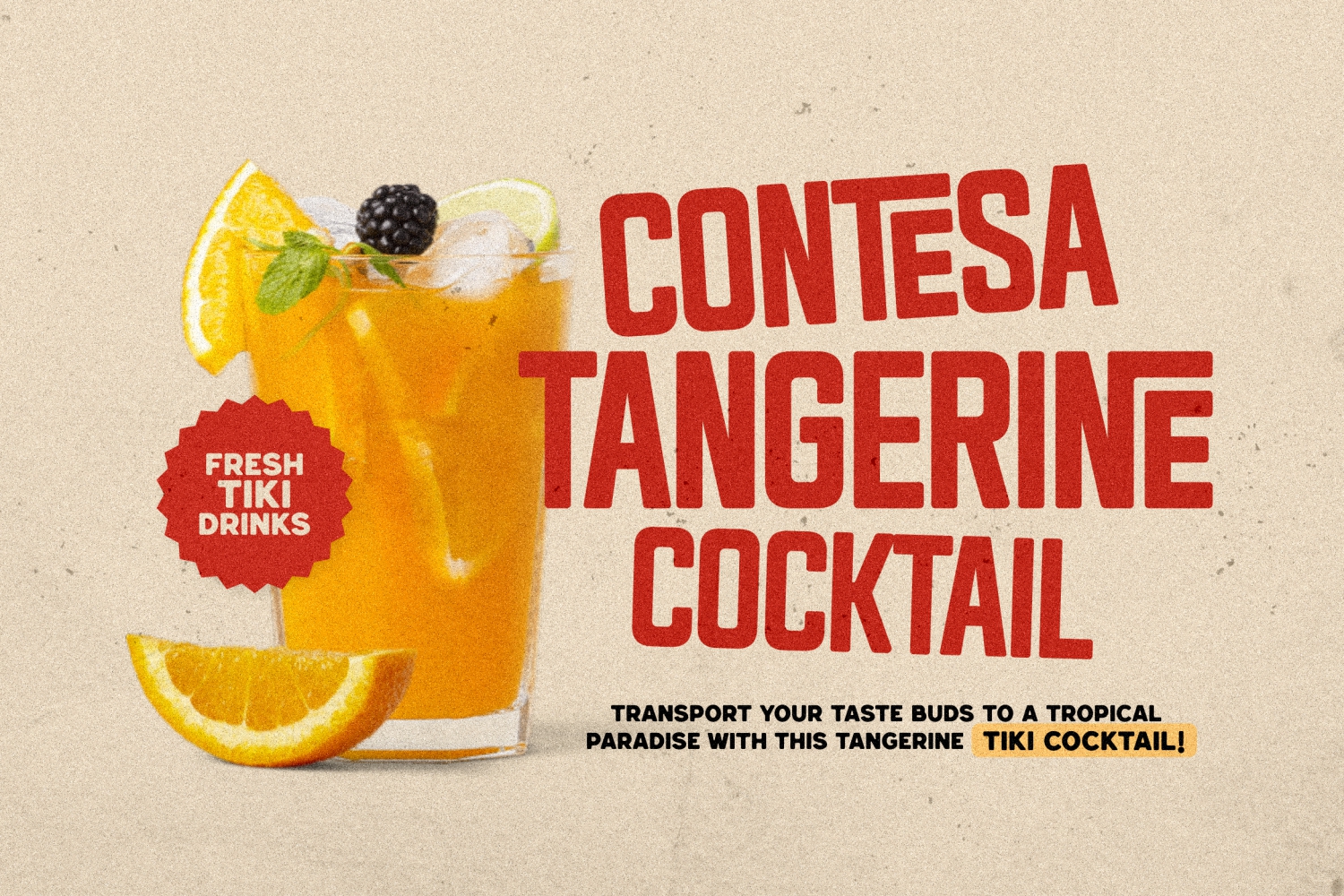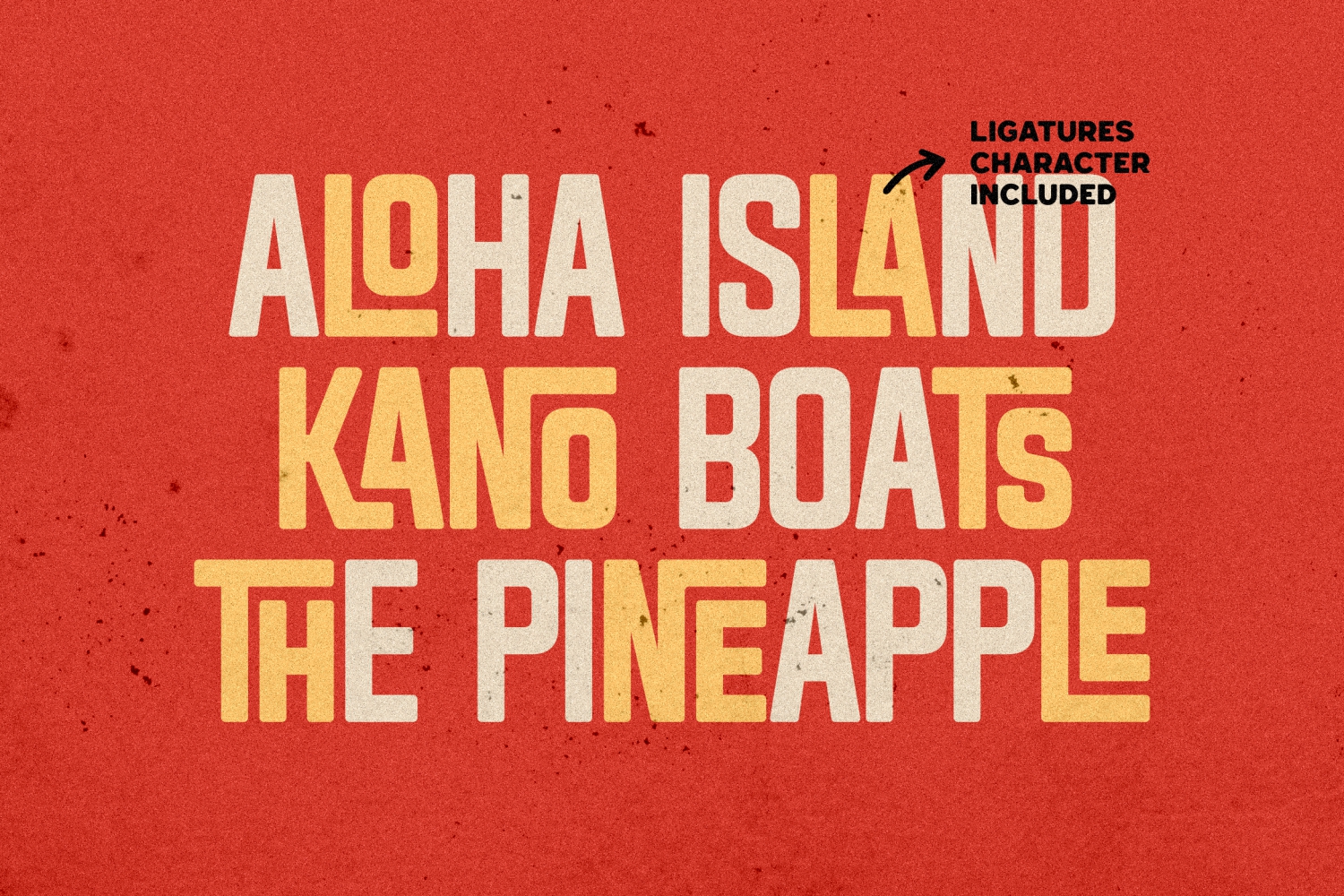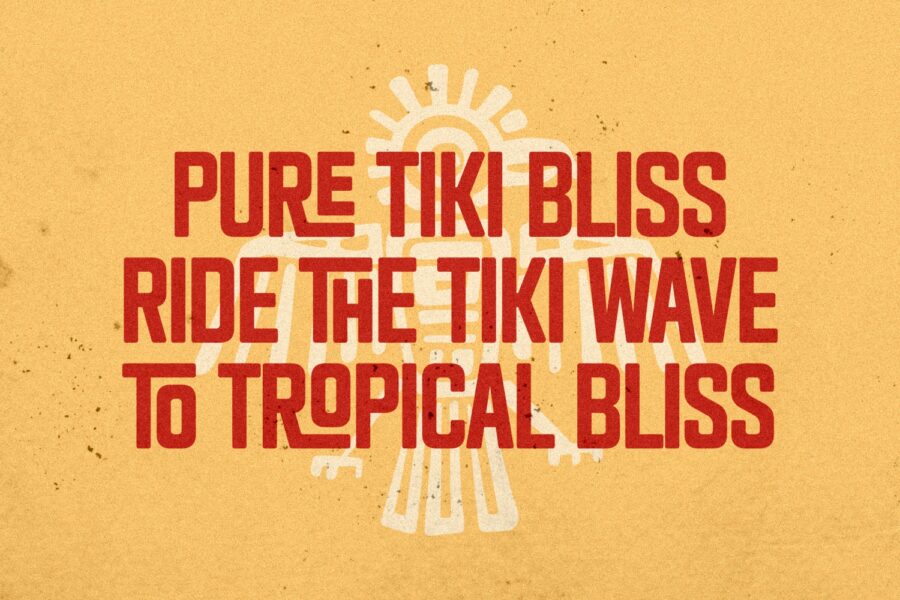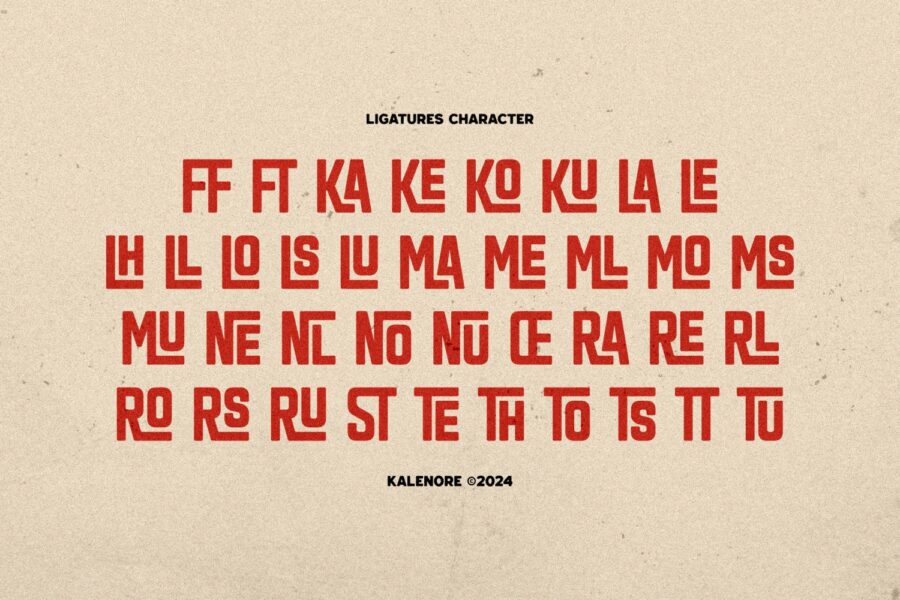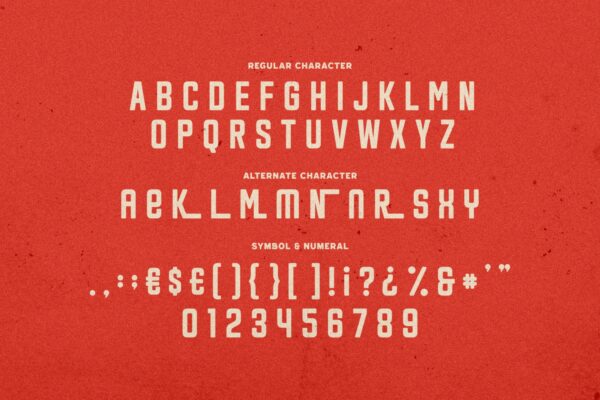
Kalenora is a bold and expressive display font inspired by the vibrant energy of Tiki culture. With its tribal essence and handcrafted feel, Kalenora blends geometric precision with playful irregularities to deliver a unique and eye-catching typeface. The font includes a wide variety of ligatures and alternate characters that create a dynamic rhythm in every word, perfect for adding a tropical flair to any design.
Ideal for branding, posters, cocktail menus, surf and summer-themed designs, Kalenora brings a sense of warmth, tradition, and adventure. Whether you’re designing for a beachside bar, an island getaway campaign, or a festive retro vibe, this font offers versatility and visual impact with a distinctive Polynesian twist.
Kalenora